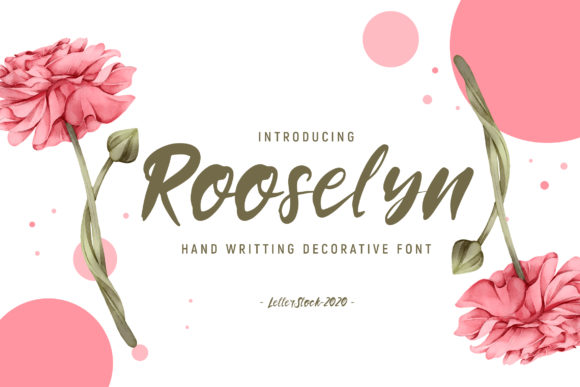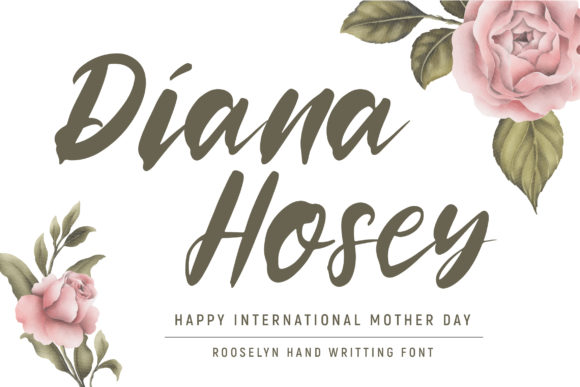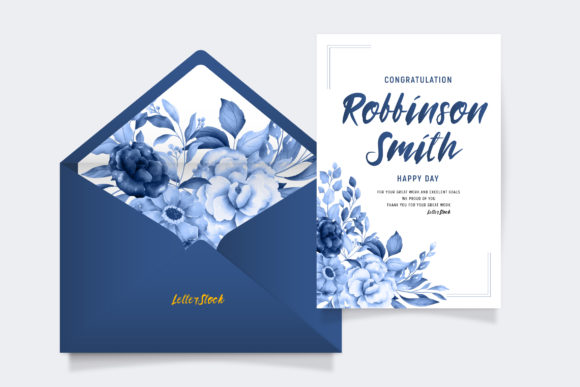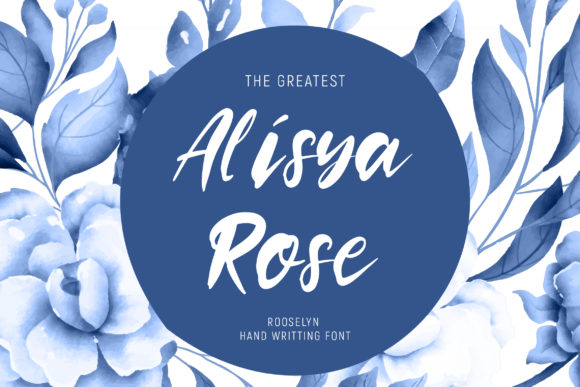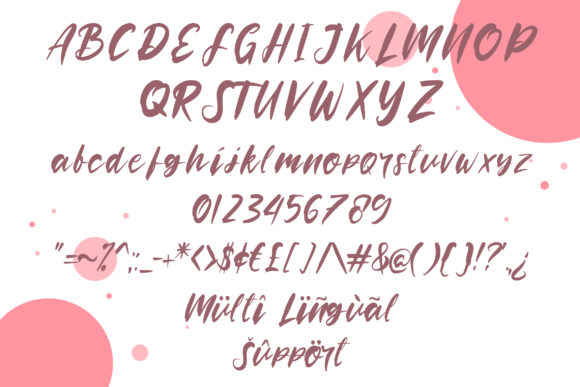
Rooselyn Font
About Rooselyn Font
Rooselyn simplifies elegance into one truly outstanding handwritten font. It will elevate a wide range of design projects to the highest level, be it branding, headings, wedding designs, invitations, signatures, logos, labels, and much more!